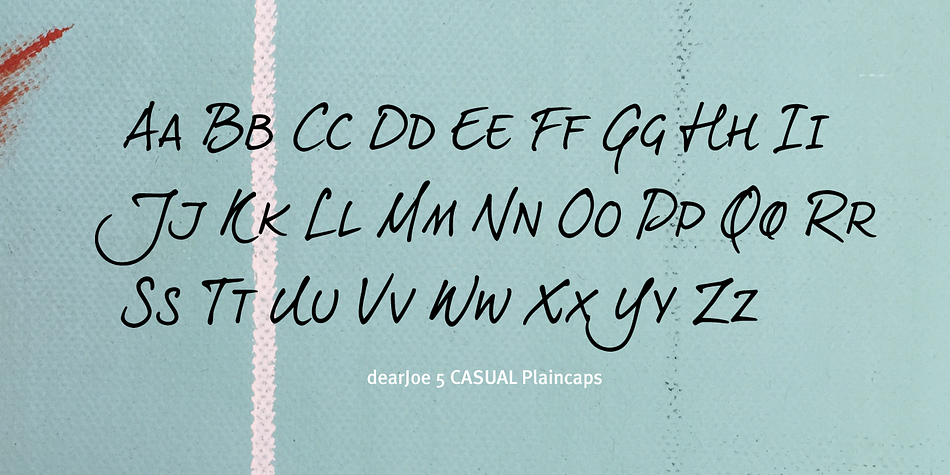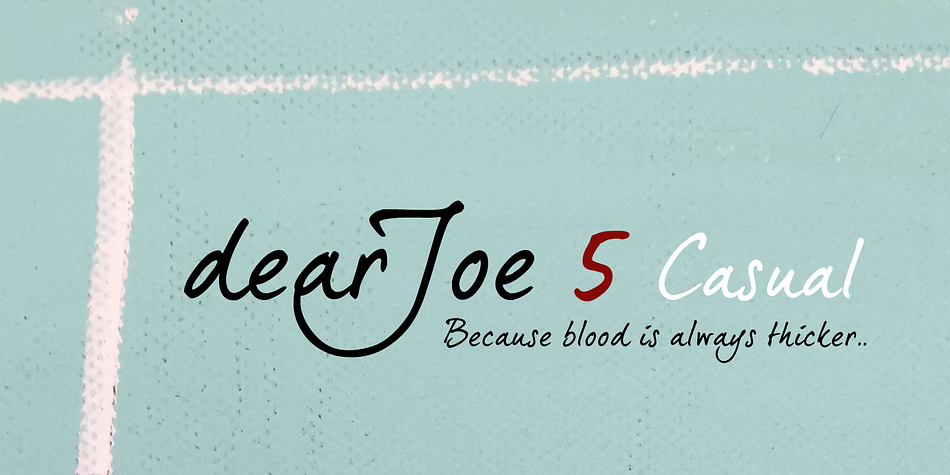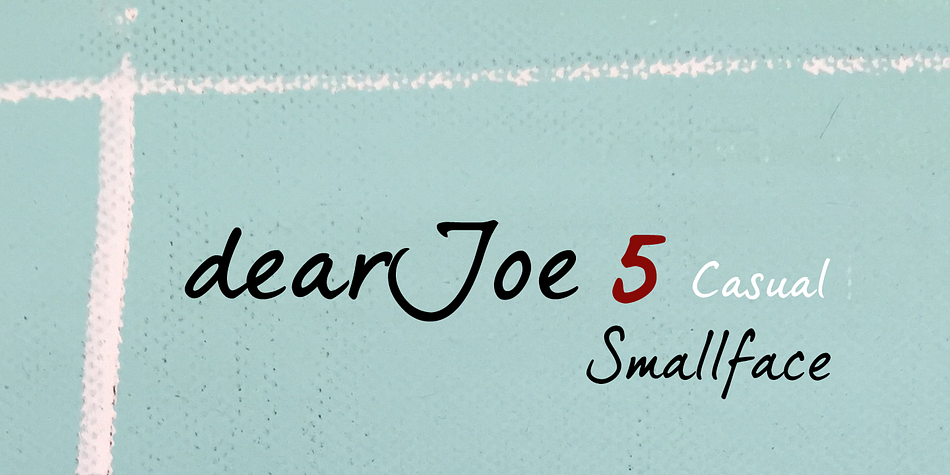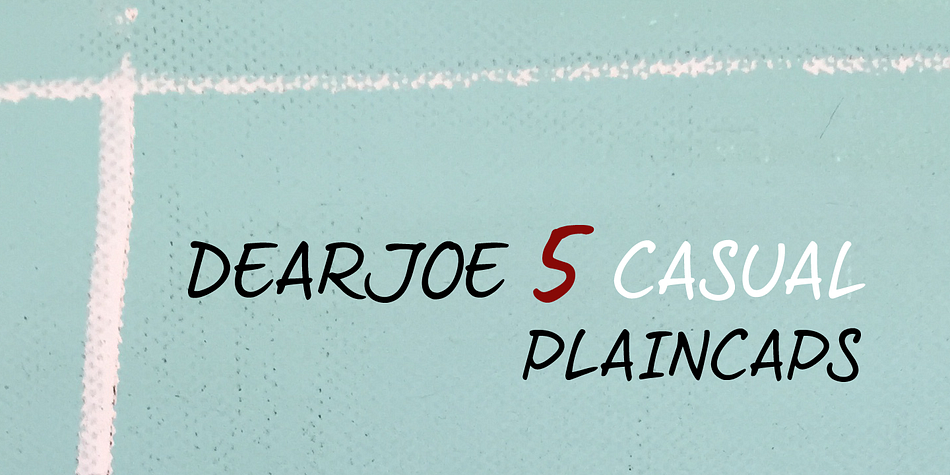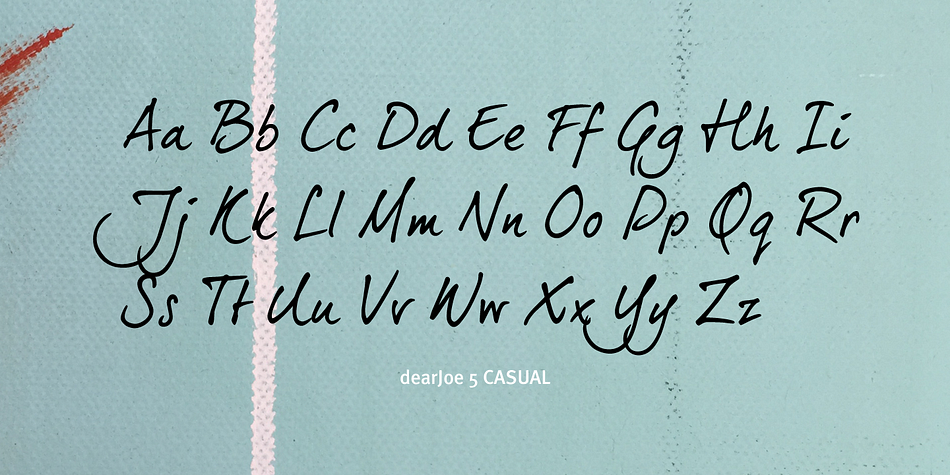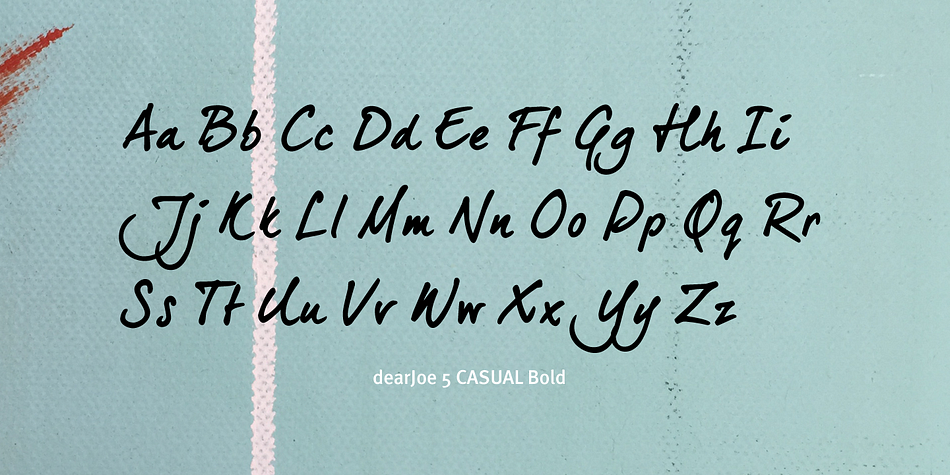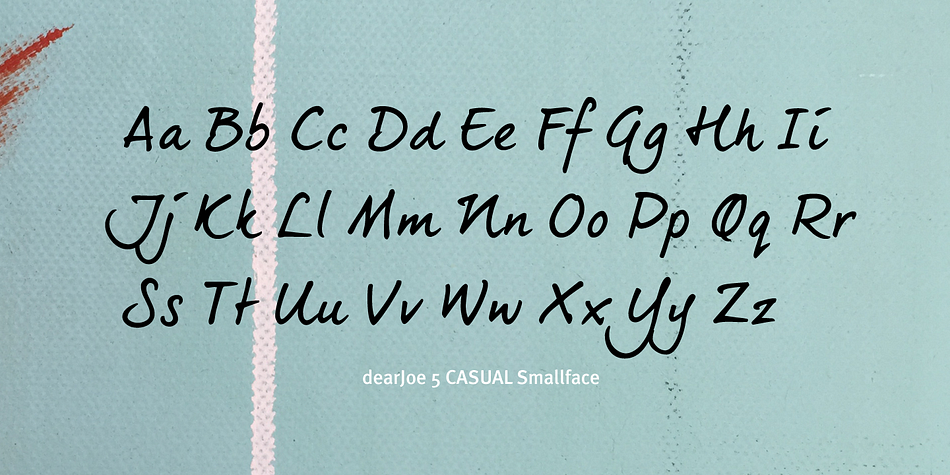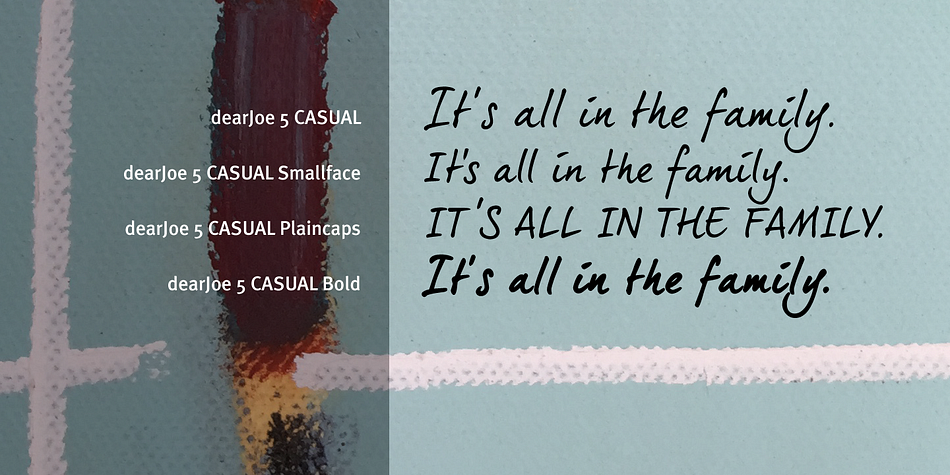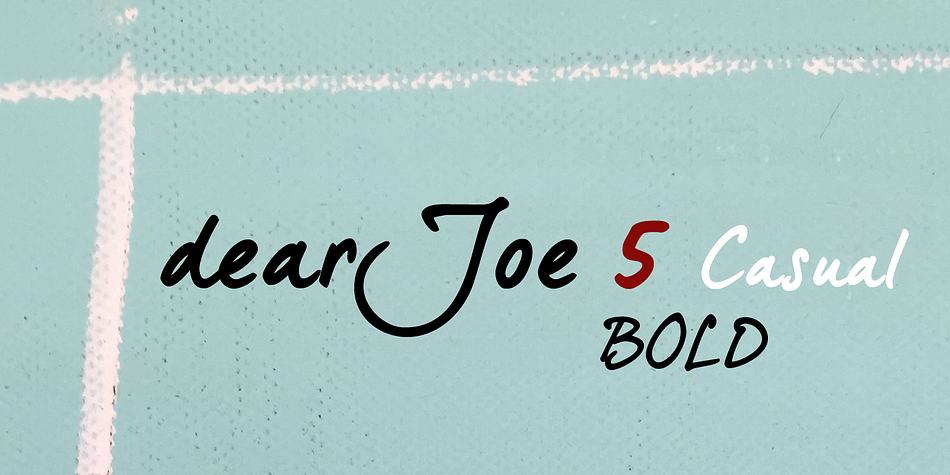
dearJoe 5 Casual is a hand drawn font family. This typeface has five styles and was published by JOEBOB Graphics.
What started out as a simple effort to turn my handwriting into a font has taken a life of it’s own. DearJoe 5 Casual has literally travelled all over the world and can be spotted on unexpected items like the cash jar of resting place in the Himalayas, a street sign in Tasmania, bike taxi’s in Jakarta, Chocolate shops on fifth Avenue and so forth.
It’s been quite the journey for both of us.
The font picked up a couple of new family members along the way for your writing convenience.